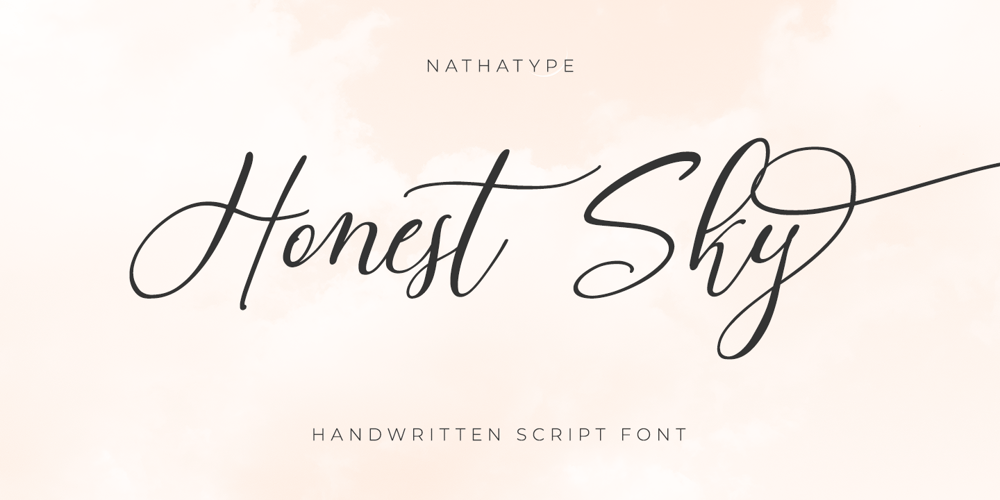
Honest Sky Font Family was designed by Donis Miftahudin and published by Nathatype. Honest Sky contains 1 styles and family package options. Show your lovely, unique points of view with this font script. Honest Sky is a script font made from handwriting to show modern, elegant designs to any of your designs. The letters are created in interconnected cursive styles with a lot of curved wipes. The lines’ proportions and thickness are consistent enough. Use Honest Sky for big-sized texts for a legibility reason. Enjoy the available features in this font.Features: Stylistic Sets Ligatures Multilingual Supports PUA Encoded Numerals and Punctuations Honest Sky fits for various design projects, such as posters, banners, logos, magazine covers, quotes, headings, printed products, merchandise, social media, etc. Find out more ways to use this font by taking a look at the font preview.Thanks for purchasing our fonts. Hopefully, you have a great experience using our font. Feel free to contact us for further information when you have a problem using the font. Thank you. Happy designing.